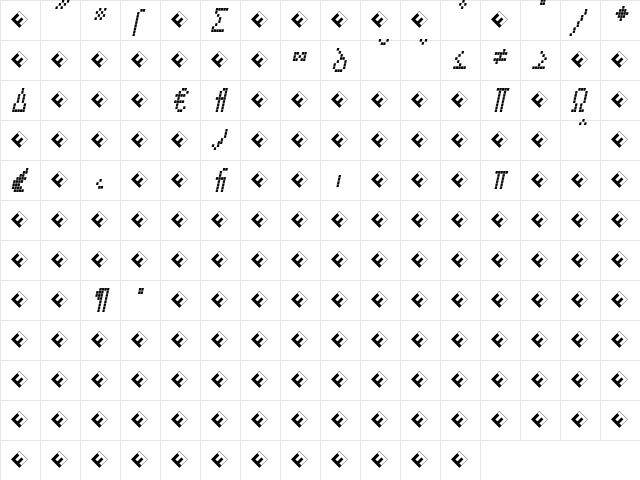
CallSix-ItalicExp Regular Font Preview
CallSix-ItalicExp Regular
CallSix-ItalicExp Regular Font Details
Design Context for CallSix-ItalicExp Typeface
CallSix-ItalicExp is a composed and adaptable typeface that performs quietly and consistently across a wide range of design contexts. Its italic angle brings a sense of urgency and motion to the letterforms.
Pro Tip: Try CallSix-ItalicExp for annotation and caption copy alongside an upright companion — the contrast in angle creates a dynamic but ordered typographic system.